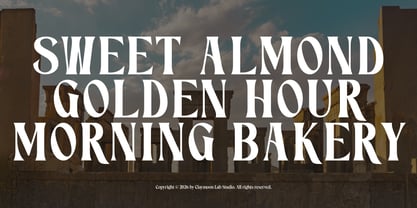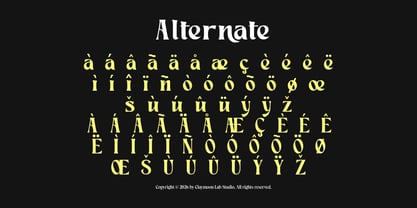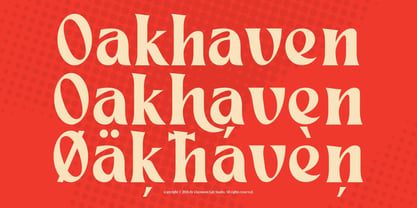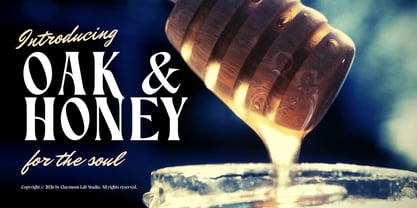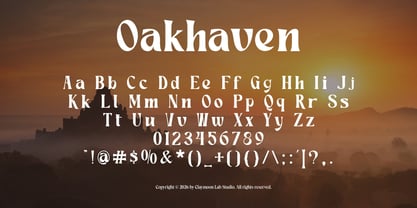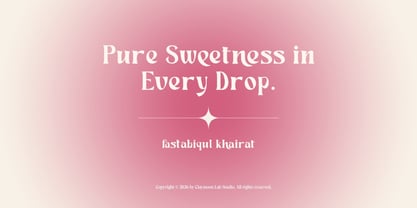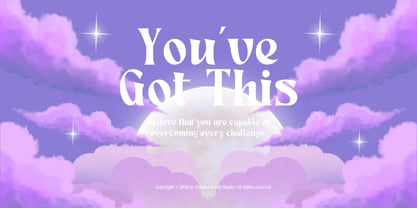
Oakhaven
The Oakhaven Font Family was designed by Firman Maulana Ihsan and published by Claymoon Lab Studio. Oakhaven contains 1 styles. More about this family
Oakhaven — Bold Retro Luxury Serif
Bring a touch of timeless sophistication and vintage warmth to your digital designs with Oakhaven, a bold retro luxury serif. Featuring high-contrast letterforms, soft organic curves, and sharp, elegant terminals, this typeface captures the nostalgic charm of the 70s and 80s while maintaining a premium, contemporary edge. Its heavy weight commands attention, making it an ideal choice for designs that require both confidence and classic beauty.
Oakhaven is equipped with a stunning array of custom alternates and seamlessly connected ligatures, allowing you to craft bespoke, highly personalized typography. Whether you are designing upscale boutique branding, artisanal digital packaging, or elegant editorial layouts, this asset delivers a rich, luxurious aesthetic that elevates your entire creative project.
* Full Character Set: Uppercase, lowercase, numerals, and standard punctuation.
* Alternates & Ligatures: Unique decorative characters and beautifully joined letterforms for a custom typographic finish.
* Standard Latin Support: Broad language coverage for international creative projects.
Perfect For These Projects:
* Luxury Branding & Logo Design: Crafting high-end brand identities, premium wordmarks, and sophisticated boutique logotypes.
* Food & Beverage Packaging: Designing elegant digital labels for artisanal bakeries, honey jars, organic cafes, and premium goods.
* Digital Editorial & Magazine: Composing striking digital covers, retro-inspired articles, and elegant online publications.
* Social Media & Web Graphics: Creating engaging quote graphics, aesthetic Instagram posts, and upscale digital campaigns.
* Digital Event Typography: Designing sophisticated digital invitations, online announcements, and romantic event branding.